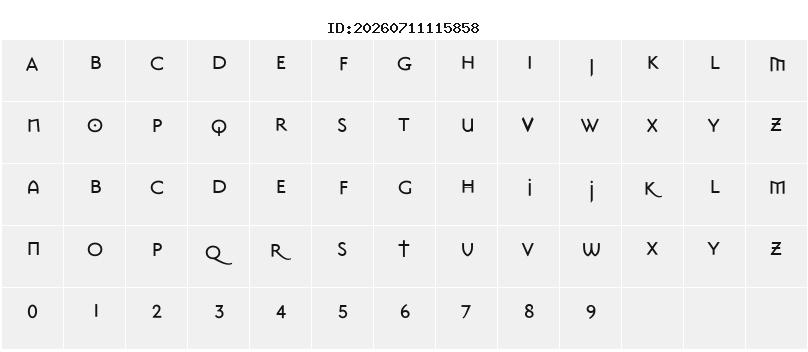
MasonSansSuper Preview
• Font Name: MasonSansSuper
• Font Style: Roman
• Full Font Name: MasonSansSuper
• Copyright: Copyright (C) 1994, Emigre Graphics; Designed by Jonathan Barnbrook
About MasonSansSuper.ttf
MasonSansSuper.ttf is a modern, elegant sans-serif font designed for ultimate readability and visual harmony. Perfect for branding, headlines, web design, and print materials.